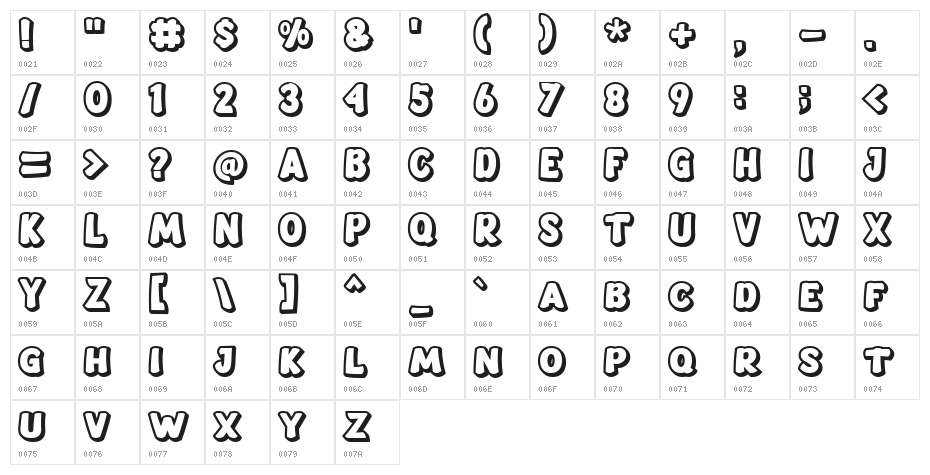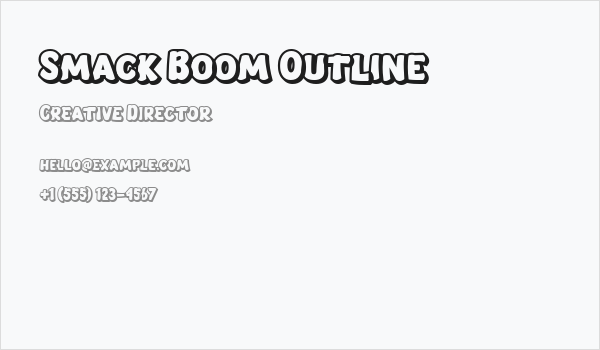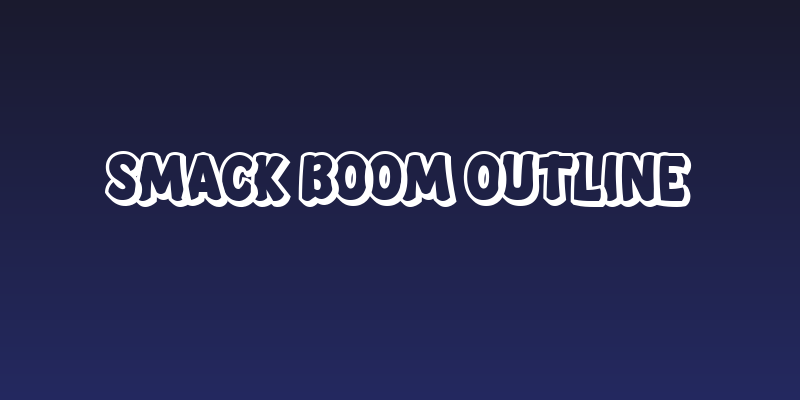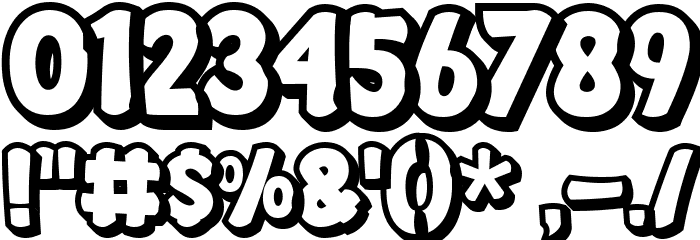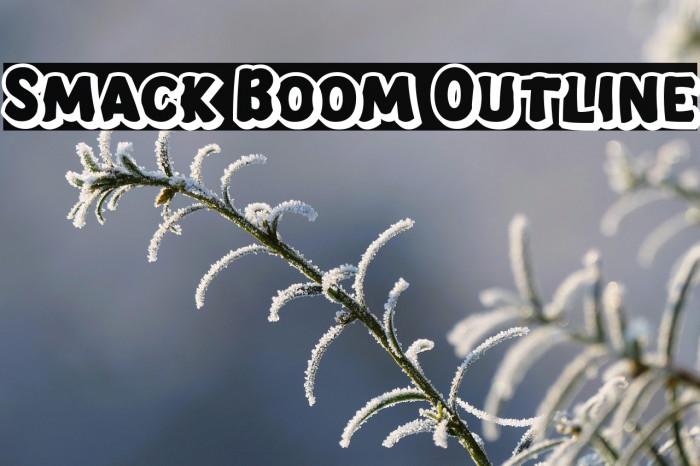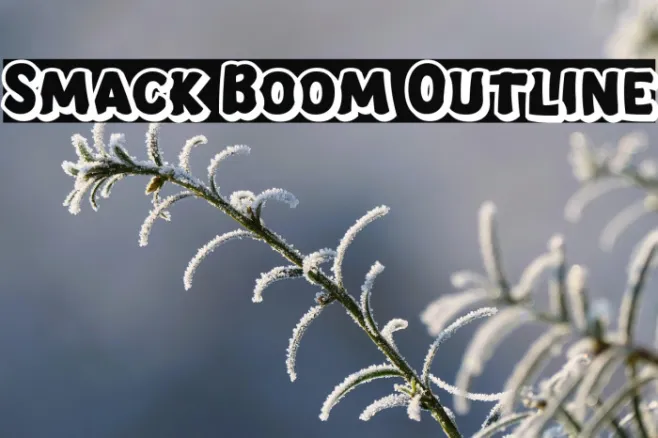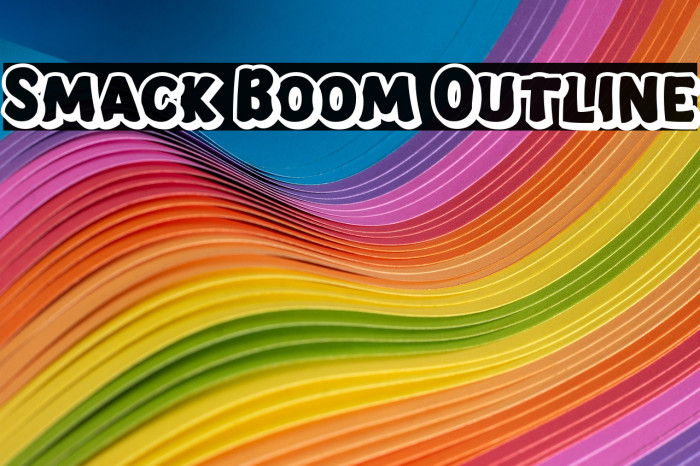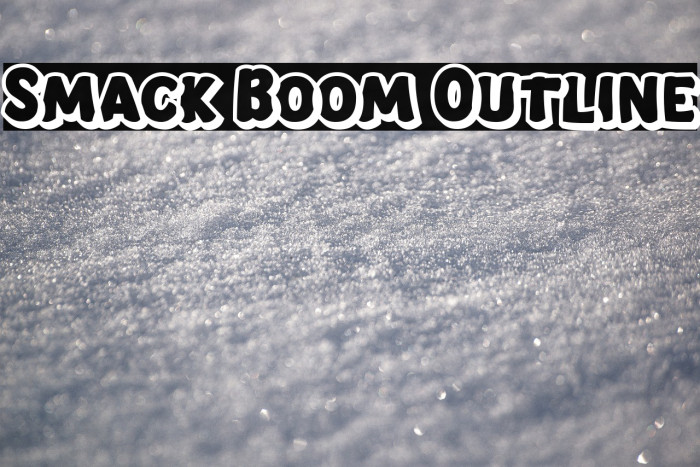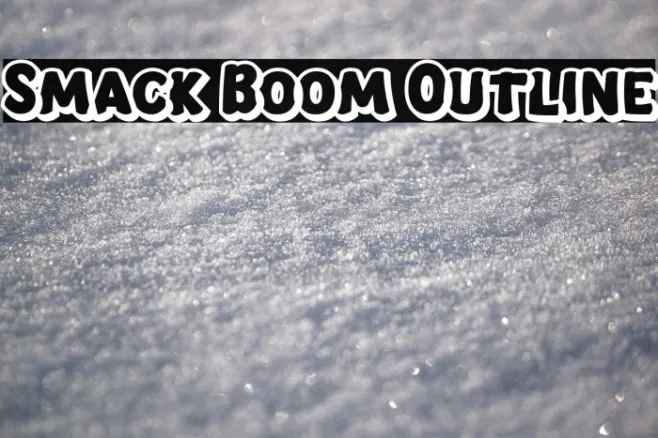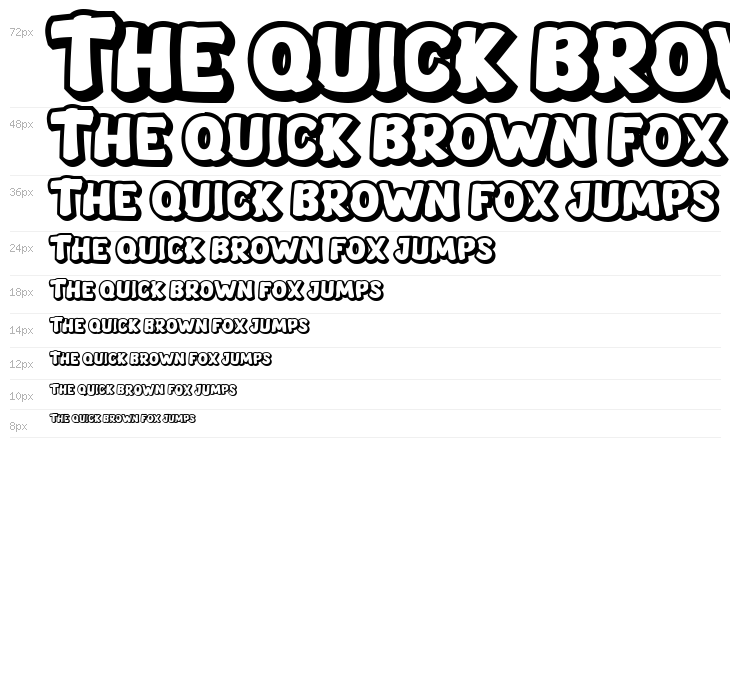
Smack Boom Outline Font
Smack Boom Outline Description
This font features bold, playful characters with a thick outline that gives it a comic-like appearance. The letters are uppercase and lowercase, with a consistent, rounded style that adds a sense of fun and energy. The numbers and special characters maintain the same boldness and outline, ensuring uniformity across all glyphs. The font's design is highly decorative, making it ideal for eye-catching displays. Its thick outlines and bold strokes make it stand out, perfect for projects that require a lively and engaging typeface.
| Overall Style | Playful, Comic |
| Proposed Projects | Ideal for comic books, children's books, posters, and playful branding. |